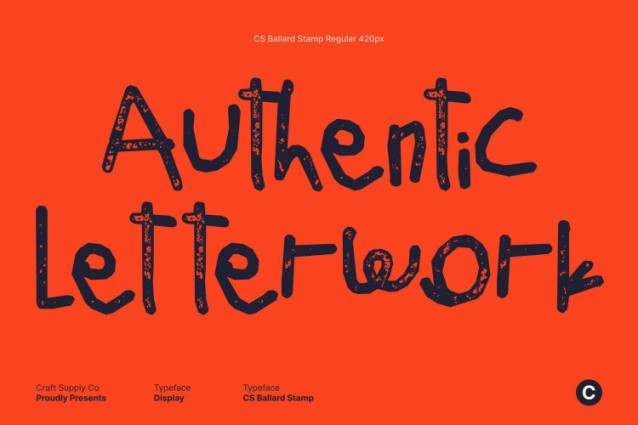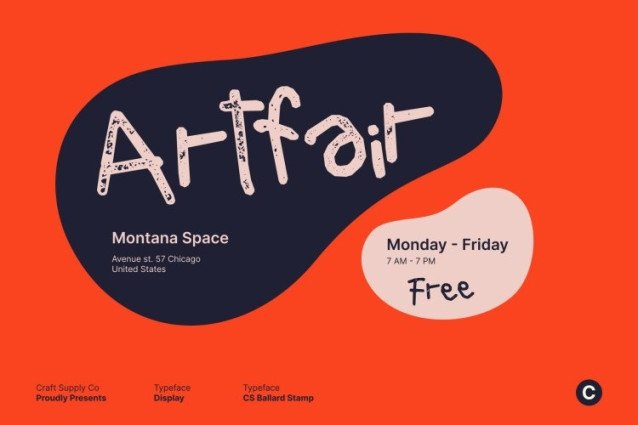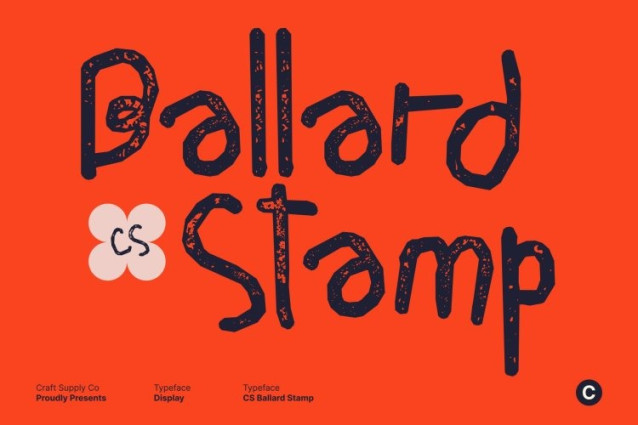
CS Ballard Stamp Font
CS Ballard Stamp Font This is a gritty yet stylish messy handwritten font that celebrates imperfection and spontaneity. Designed with irregular, freely scribbled letterforms, it captures the raw charm of natural handwriting at its most expressive. Enhanced by a stamp effect, each character gains textured depth and subtle distress, amplifying its lively, handcrafted personality.
Irregular Shapes with Stamped Authenticity
Uneven strokes, unpredictable movement, and organic flow define this font’s character. The stamped texture introduces gentle wear and ink variation, making every letter feel pressed by hand rather than digitally drawn. This imperfect rhythm creates a strong sense of authenticity, ideal for designs that prioritize originality, emotion, and creative freedom over precision.
Playful and Expressive with Artistic Texture
Radiating joy and creativity, this font brings a playful, approachable energy to any layout. Its messy, scribbled style combined with a vintage stamped finish gives designs a fun yet artistic edge. This makes it especially well suited for children’s graphics, playful posters, handmade branding, and expressive visual storytelling.
Perfect for Fun and Creative Projects
From kids’ illustrations and casual packaging to DIY-inspired graphics and relaxed typography, this font adds warmth and personality wherever it’s used. Embracing chaos in the most charming way, transforms every design into a lively, expressive, and delightfully imperfect work of art.